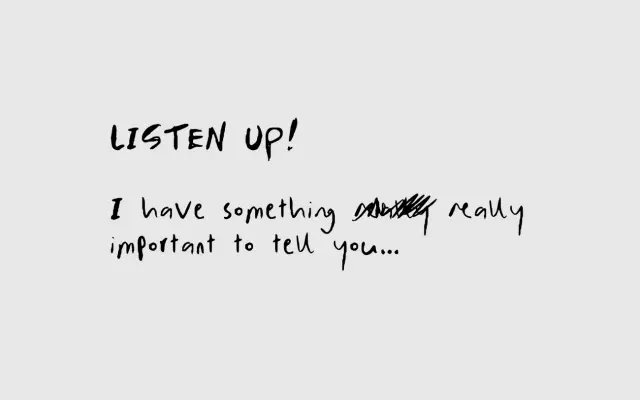
A scribbly pencil-style handwriting font with four style variants, 650+ glyphs and alternates designed to simulate genuinely messy hand lettering.
Built to replicate the erratic quality of pencil-scrawled handwriting, the family ships in four distinct styles alongside a fifth sketches font containing scratchy lines, circles, crosses and scribbles in PNG and SVG formats. Over 650 glyphs include extensive ligatures and character alternates that can be mixed freely to avoid the mechanical repetition common in script fonts. Multi-lingual Latin support broadens its practical reach beyond English-language use.
Manic is a casual handwriting script mimicking pencil scrawl on paper, with multiple alternates and ligatures to simulate authentic hand-lettered messiness.